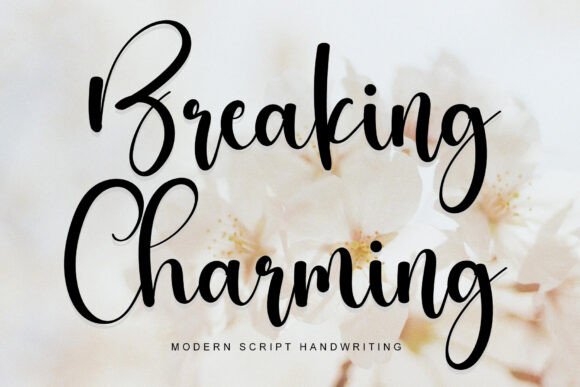
Breaking Charming Font: Adding a Touch of Enchantment to Your Designs
In the world of typography, fonts play a crucial role in conveying the tone and personality of a message. With numerous font styles available, it can be challenging to find the perfect one that adds a touch of magic to your designs. This is where the Breaking Charming Font comes in – a beautiful, whimsical font that brings a cheerful and nostalgic ambiance to your words.
What is Breaking Charming Font?
Breaking Charming Font is a decorative font that boasts an array of enchanting elements, making it perfect for adding a touch of whimsy to your designs. Its unique and charming style is ideal for creating eye-catching greeting cards, gift tags, and holiday-themed projects. With its nostalgic flair, this font is sure to transport your readers to a world of wonder and magic.
Key Features of Breaking Charming Font
- Decorative Elements: Breaking Charming Font is adorned with decorative elements that add a touch of elegance and sophistication to your designs.
- Whimsical Flair: The font’s whimsical style makes it perfect for creating playful and eye-catching designs that capture the imagination of your readers.
- Nostalgic Ambiance: The font’s nostalgic ambiance is sure to evoke feelings of warmth and nostalgia, making it perfect for creating sentimental designs.
- Versatility: Breaking Charming Font is versatile and can be used for a wide range of design projects, from greeting cards to holiday-themed projects.
Uses of Breaking Charming Font
Breaking Charming Font is perfect for a variety of design projects, including:
- Greeting Cards: Add a touch of magic to your greeting cards with this enchanting font.
- Gift Tags: Create beautiful and personalized gift tags with Breaking Charming Font.
- Holiday-Themed Projects: Get into the holiday spirit with this font, perfect for creating festive designs for Christmas, Halloween, Easter, and more.
- Social Media Graphics: Add a touch of whimsy to your social media graphics with Breaking Charming Font.
Benefits of Using Breaking Charming Font
Using Breaking Charming Font in your designs offers numerous benefits, including:
- Unique and Eye-Catching Designs: The font’s unique style ensures that your designs stand out from the crowd.
- Emotional Connection: The font’s nostalgic ambiance helps create an emotional connection with your readers.
- Versatility: The font’s versatility makes it perfect for a wide range of design projects.
Tips and Tricks for Using Breaking Charming Font
Here are some tips and tricks for getting the most out of Breaking Charming Font:
- Experiment with Different Sizes: Experiment with different font sizes to create visual interest and hierarchy in your designs.
- Combine with Other Fonts: Combine Breaking Charming Font with other fonts to create a unique and eye-catching design.
- Use Decorative Elements: Use the font’s decorative elements to add a touch of elegance and sophistication to your designs.
- Keep it Simple: Keep your design simple and uncluttered to ensure that the font remains the focal point.
Breaking Charming Font is a beautiful and whimsical font that adds a touch of enchantment to your designs. With its decorative elements and nostalgic ambiance, it’s perfect for creating eye-catching greeting cards, gift tags, and holiday-themed projects. Whether you’re a designer or a DIY enthusiast, this font is sure to bring a cheerful and nostalgic ambiance to your words.